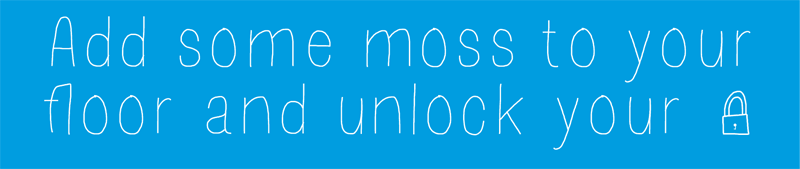
Handwritten font based on some Helvetica shapes, as skinny as Kate, as Mossy as moss-grown ideas about handwritten typography. For commercial use, please visit this page to buy a license for $2 only: http://bibliopolae.tictail.com/product/mossy-font |